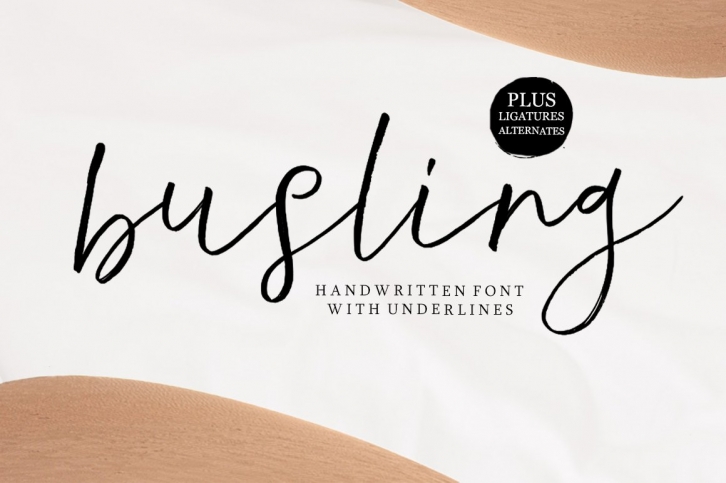
Busling is a great font that was designed by Youngtype. Imagine the amount of combinations you can create using this font! The archive is 17.18 MB and it was released on November 3, 2021. Busling looks beautiful on wedding invitations, greeting cards, logos, posters, labels, t-shirt designs, logos, business cards and is perfect for use in ink or watercolor works, fashion, magazines, packaging and food menus, children's books and more!